Tenor Sans Font Pairing
Tenor Sans Font Pairing. Ficus is a creative and graphic design studio specializing in branding, website design and packaging design. 2 style 4.6 178 downloads.
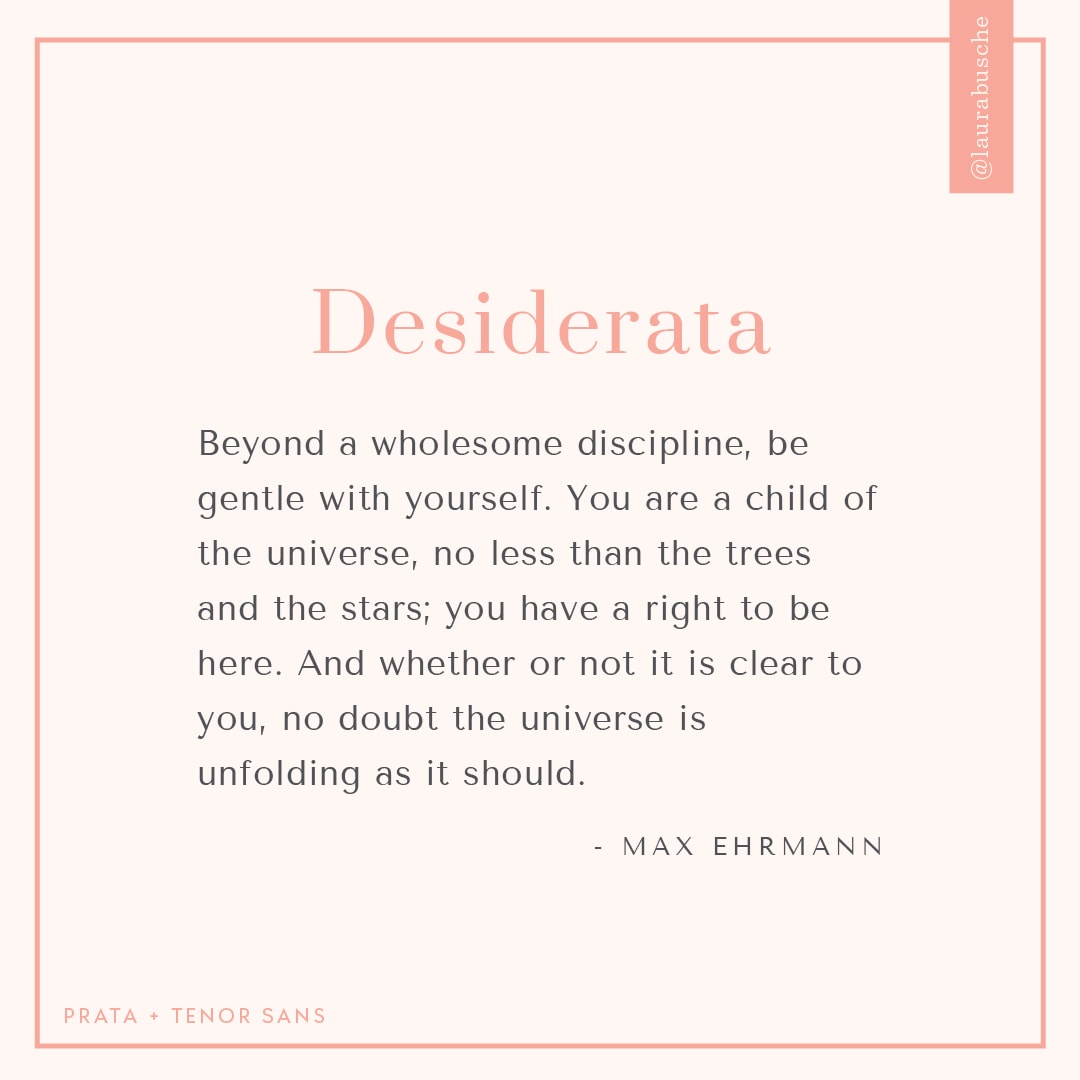
Free download tenor sans font family (typeface) ttf, otf from fontmirror.com. Both fonts features curvy tails but the slight contrast in the title font differentiates it from the body font. Tenor sans + lato light.
Get tenor sans | get fahkwang. Maxibestof is your feed of websites &. Putting together playfair display, a high contrast serif font, and open sans, a humanist sans serif typeface, really gives that classic look.if you’re looking for a logo font pair that’s tried and tested, then these two are some of the best fonts for logos out there.
It Has A Lovely Fluidity.
Tenon font pairings about description when we trimmed the serifs off our new slab serif family mortise, we found a plain, efficient sans that marches through the. Tenor sans 400 (ttf) , salma alfasans. Intended for the setting of body text, it can also be applied to headlines.
Font Details Like Size, Colour, Spacing And Weight Can All Change The Look Of The Overall Combination In Subtle And Striking Ways.
Pt sans, ubuntu, philosopher, playfair display, old standard, jacques francois. Today, we will be introducing 8 of our favorite squarespace font pairings that will make your website typography look refined and professional. 1 style 4.6 107 downloads.
It Works Well For Major Headings In Regular Sentence Case And Also In All Caps.
Any font combinations will work well together, so by keeping it in the family, you cannot go wrong. It even looks great in italic for an alternate subtitle. The pairing of the bold, uppercase.
Ficus is a creative and graphic design studio specializing in branding, website design and packaging design. Vollkorn by friedrich althausen & work sans by wei huang via google fonts. Tenor sans by denis masharov & spectral by production type via google fonts.